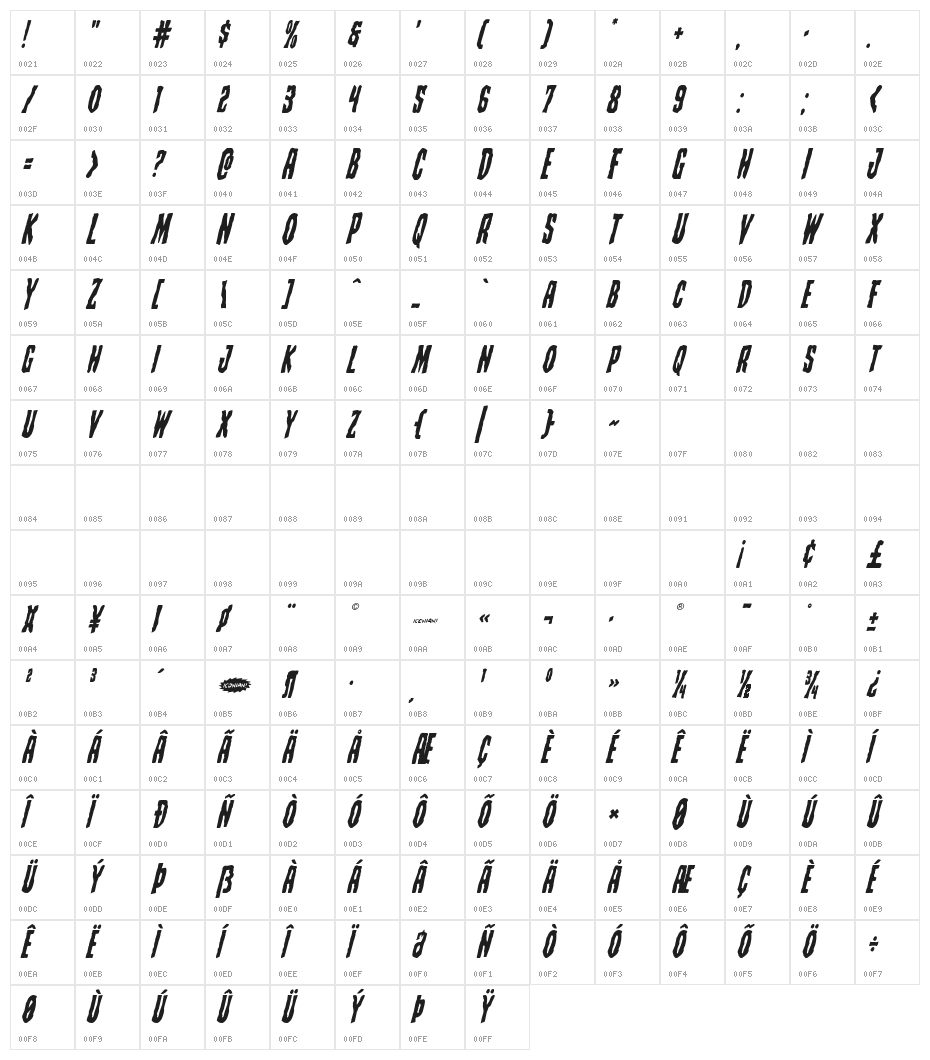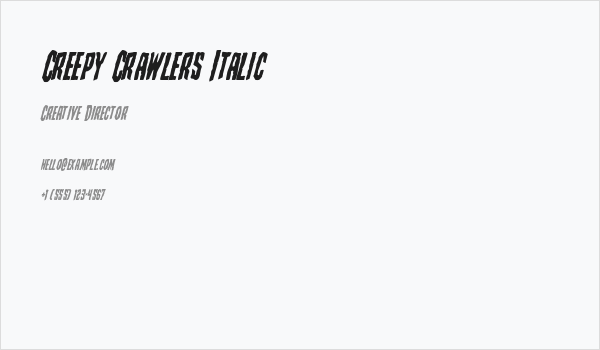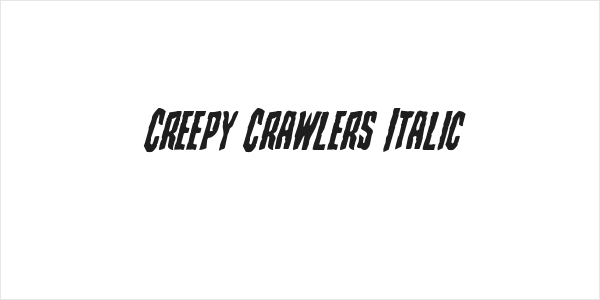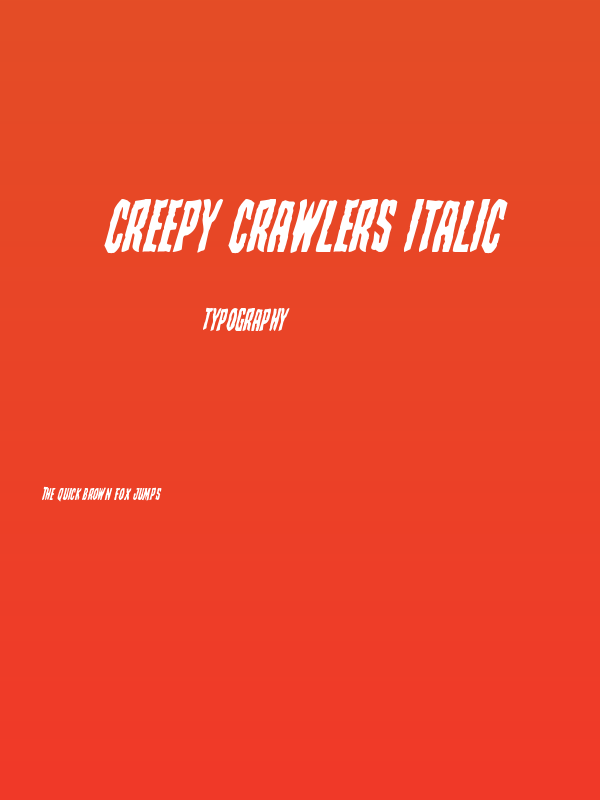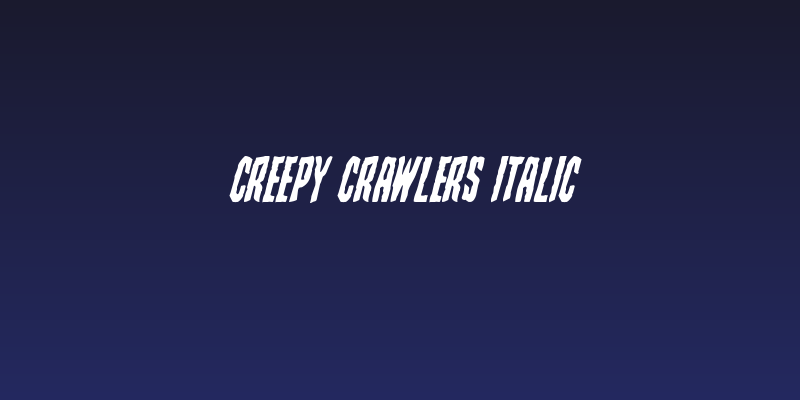
Creepy Crawlers Italic Font
Creepy Crawlers Italic Description
This font features a bold and dynamic style with an italic slant, giving it a sense of movement and energy. The characters are jagged and irregular, resembling the texture of something organic or hand-drawn. The uppercase and lowercase letters maintain a consistent height, while the numbers and special characters follow the same design ethos, contributing to a cohesive look. The font's unique appearance makes it stand out, ideal for projects that require a touch of the unconventional or eerie. Its boldness ensures visibility, while the slanted design adds a playful yet edgy twist.
| Proposed Projects | Ideal for Halloween-themed designs, horror movie posters, edgy branding, or any project needing a spooky, unconventional touch. |